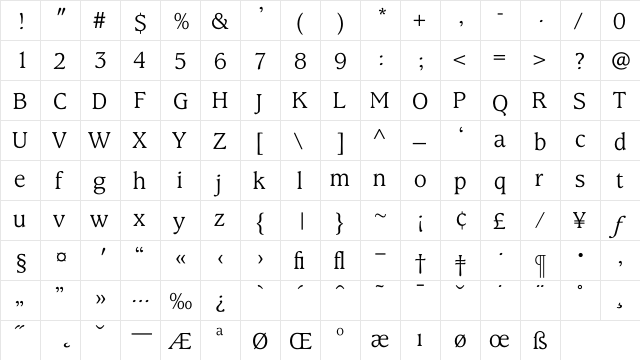
KingsrowLight Regular
Design Context for KingsrowLight Typeface
KingsrowLight offers clean, dependable letterforms without strong stylistic allegiance, making it a practical choice for designers who need flexibility. The delicate stroke weight brings airiness and refinement to layouts.